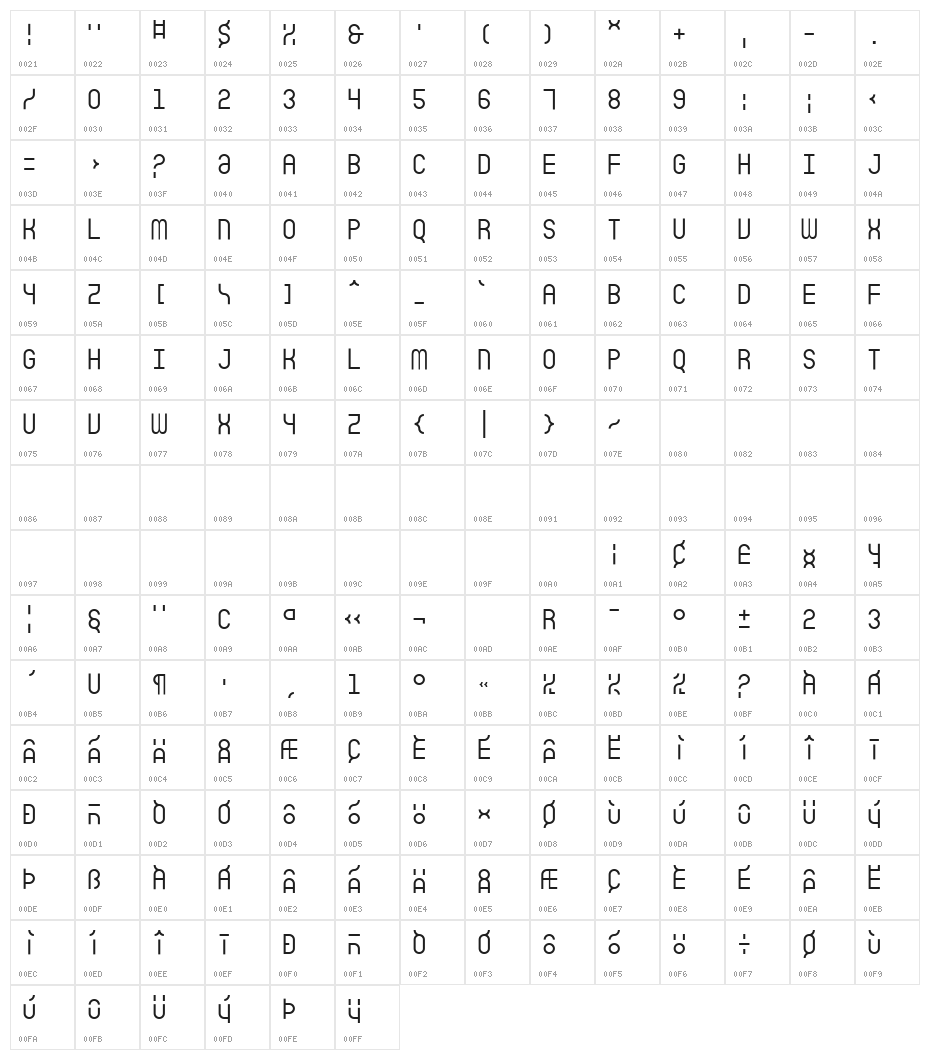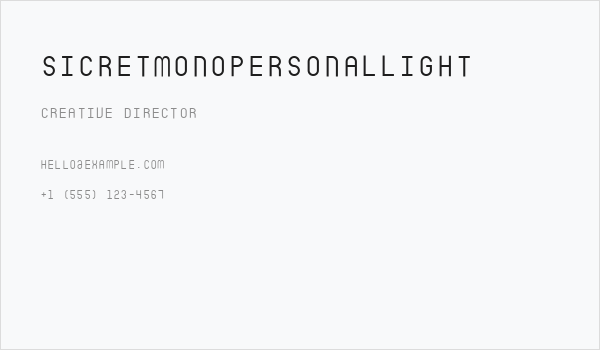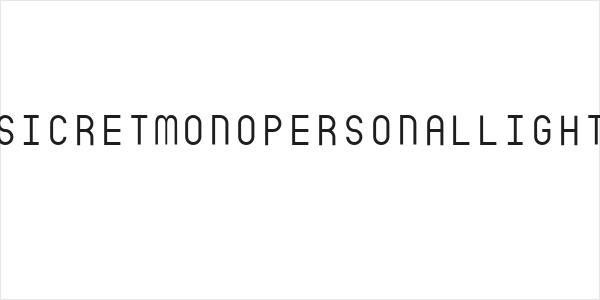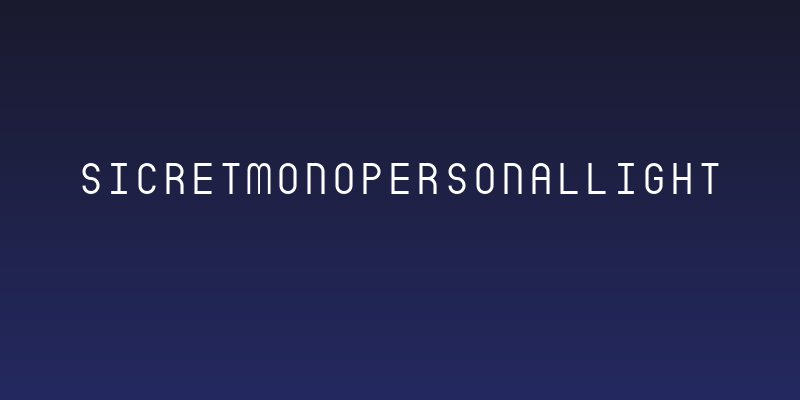
SicretMonoPERSONALLight Font
SicretMonoPERSONALLight Description
This font features a clean, modern design with a monospaced structure, ensuring each character occupies the same width. The characters are crafted with a geometric precision, offering a minimalist aesthetic that is both functional and stylish. The uniformity in character width makes it ideal for coding and tabular data, where alignment is crucial. The font's simplicity is enhanced by its rounded edges, providing a softer appearance without sacrificing clarity. It maintains a consistent stroke weight throughout, contributing to its legibility and straightforward appeal.
| Use Case | Coding, Technical documentation, Data tables |
| Proposed Projects | Ideal for coding environments, technical documentation, and data tables. It can also be used in minimalist design projects or branding that requires a clean and modern look. |